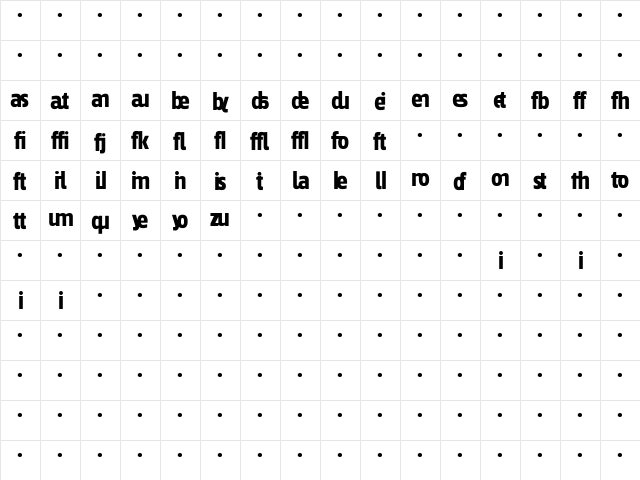
GovanTwo-Ligature Regular
| Foundry | FSI |
| Designer | Ole Schaefer, Erik Spiekermann |
Design Context for GovanTwo-Ligature Typeface
GovanTwo-Ligature takes a measured approach to typography — its balanced proportions and neutral character make it a reliable workhorse for both digital and print work.
Pro Tip: Use GovanTwo-Ligature in both headline and body roles to test its range before committing to a single application.